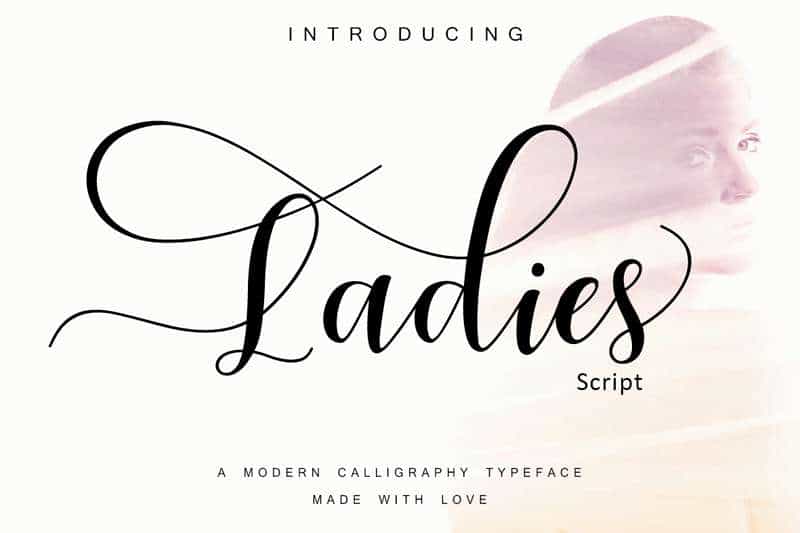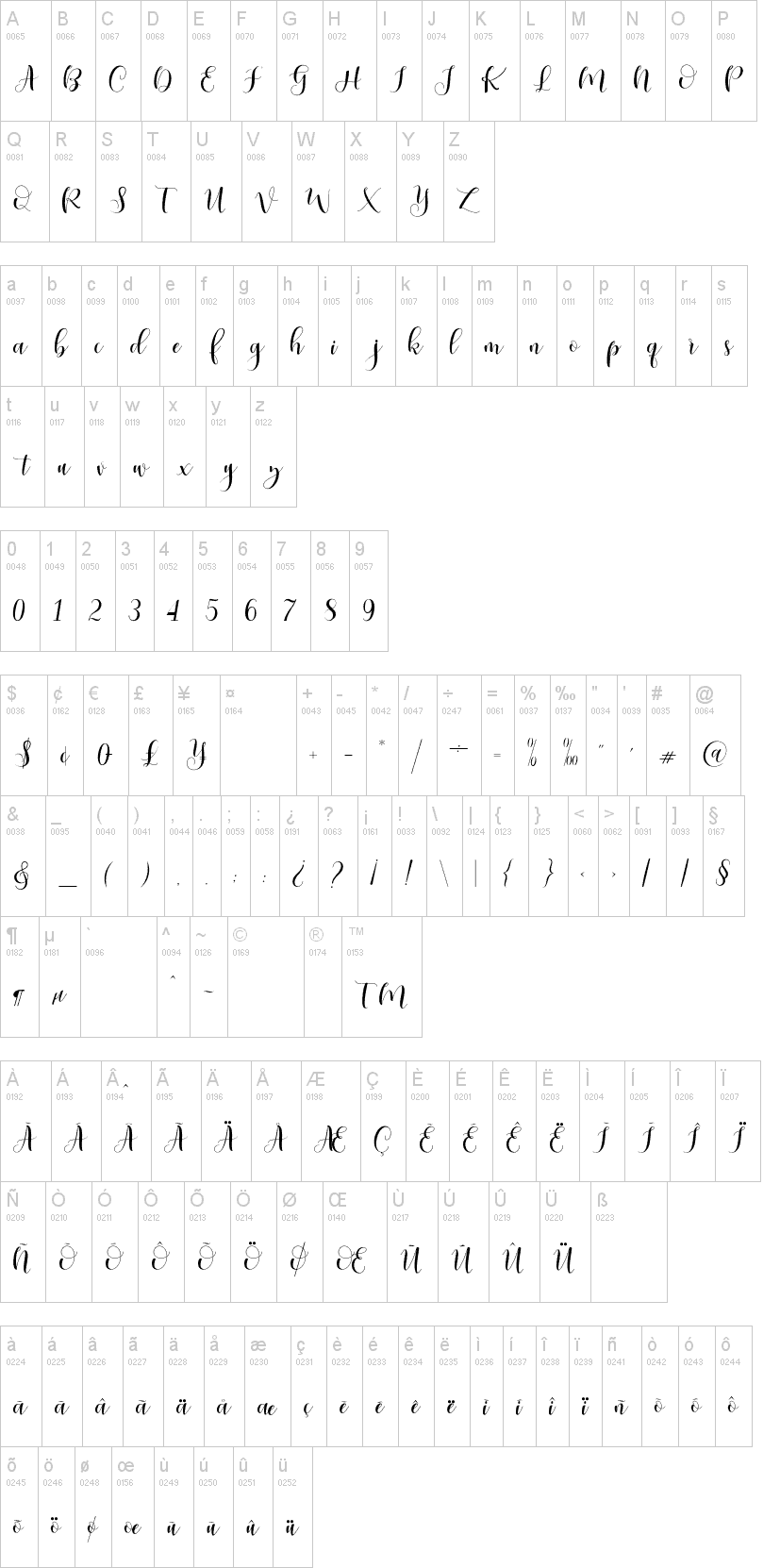
Introducing Ladies Script. Ladies Script is elegant calligraphy script font, each and every letter has been designed with love to make your text look pretty. With modern script style this font will perfect for many different project, example: announcements, greeting cards, banners, name cards, slogans, blog headers, branding, logos, fashion, attire, letters, stationery and many more!